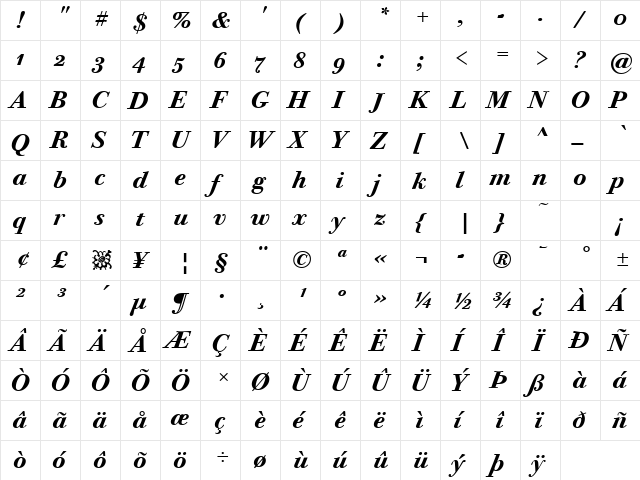
Bodoni Twelve OS ITC TT BoldIta
Design Context for Bodoni Twelve OS ITC TT Typeface
Bodoni Twelve OS ITC TT takes a measured approach to typography — its balanced proportions and neutral character make it a reliable workhorse for both digital and print work. Its bold stroke weight gives it real presence on the page.